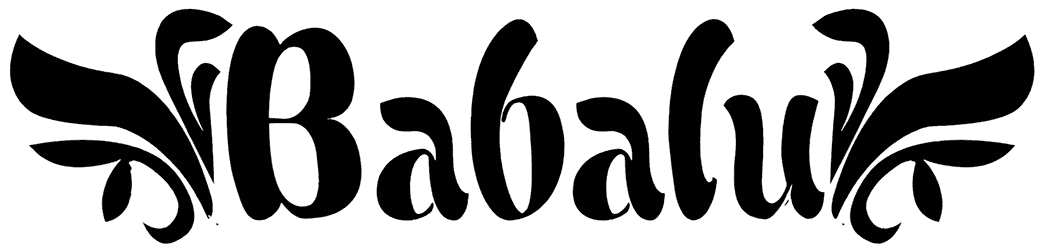
Babalu Font
Babalu is an incredibly versatile decorative font that would look really perfect on a wide set of graphic content ranging from illustrations, gift cards, web pages, and applications, to social media posts that require an artistic touch.
The delighting news about this fancy font is that aside from sharing a sense of disorder, grunge, drama, or dynamic, it offers three distinctive styles to graphic artists and widens their selection range.
Designed by: Fernando Carvente